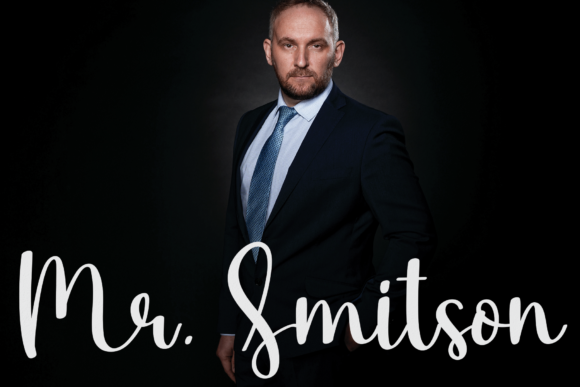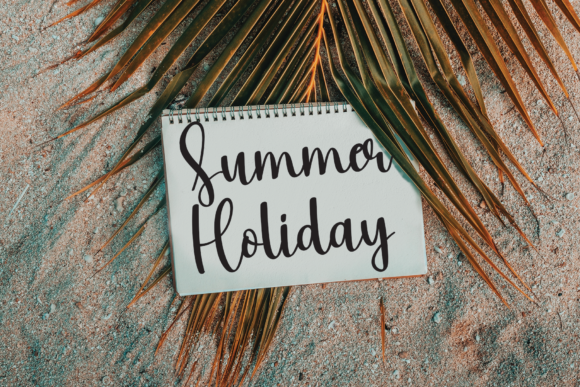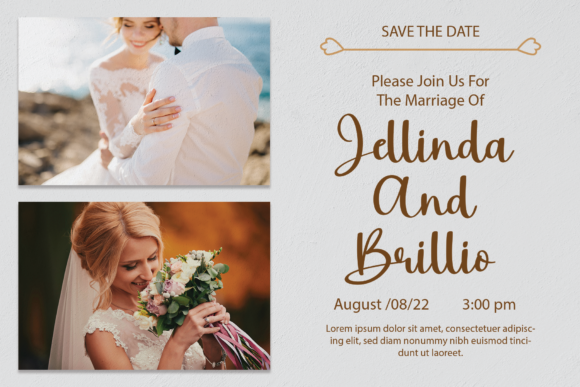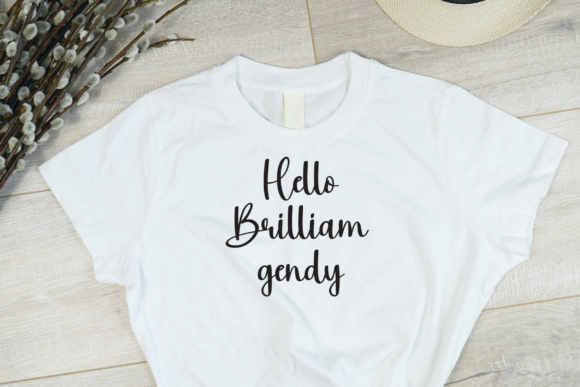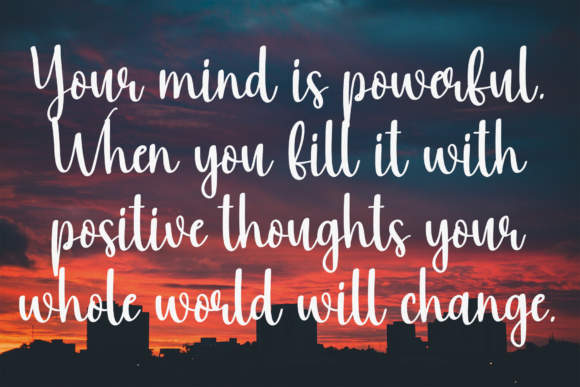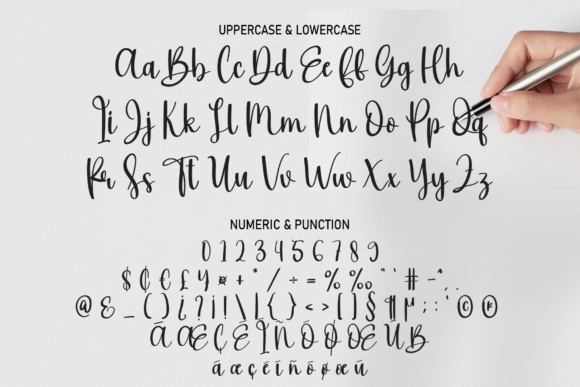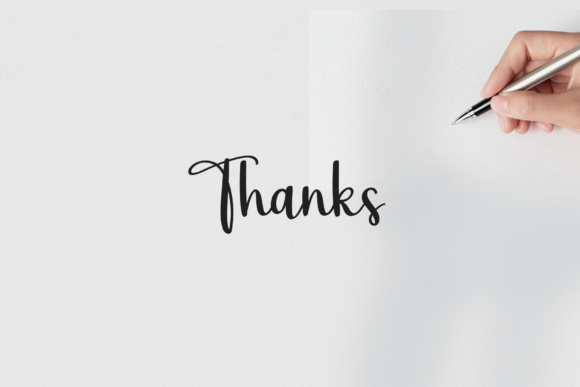
Vintage Handmade Font
About Vintage Handmade Font
Vintage Handmade is a charming and elegant handwritten font that brings a sense of nostalgia and warmth to your design projects. With its delicate strokes and intricate details, Vintage Handmade adds a touch of vintage-inspired beauty to a variety of creative endeavors.
One of the standout features of Vintage Handmade is its versatility in creating romantic and personalized designs. Whether you’re crafting wedding invitations, thank you cards, or heartfelt notes, this font’s dainty and joyful appearance captures the essence of love and celebration. The unique handcrafted feel of Vintage Handmade adds an authentic and heartfelt touch to your messages, making them even more memorable and special.
Vintage Handmade is also a perfect choice for creating custom cards and stationery. Its elegant yet approachable style makes it suitable for a range of occasions, from birthdays to anniversaries to holidays. The font’s timeless appeal ensures that your designs have a classic and enduring quality that resonates with recipients.
For digital projects, Vintage Handmade brings a sense of handmade authenticity to your graphics and social media posts. Whether you’re designing inspirational quotes, eye-catching headlines, or engaging visuals, the font’s charming script adds a personal and relatable element that connects with your audience on a deeper level.
Additionally, Vintage Handmade can be used to add a unique touch to branding projects. Whether you’re designing a logo, packaging, or labels, the font’s handmade appearance sets your brand apart and creates a memorable impression. Its vintage-inspired aesthetic communicates a sense of craftsmanship and attention to detail, appealing to those who appreciate authenticity and artisanal qualities.
In summary, Vintage Handmade is a sweet and delicate handwritten font that brings a touch of romance, nostalgia, and personalization to your design projects. Its versatility makes it a wonderful choice for a wide range of applications, from wedding invitations to branding to digital graphics. By incorporating Vintage Handmade into your designs, you’ll infuse them with a sense of charm and sentiment that resonates with both you and your audience.